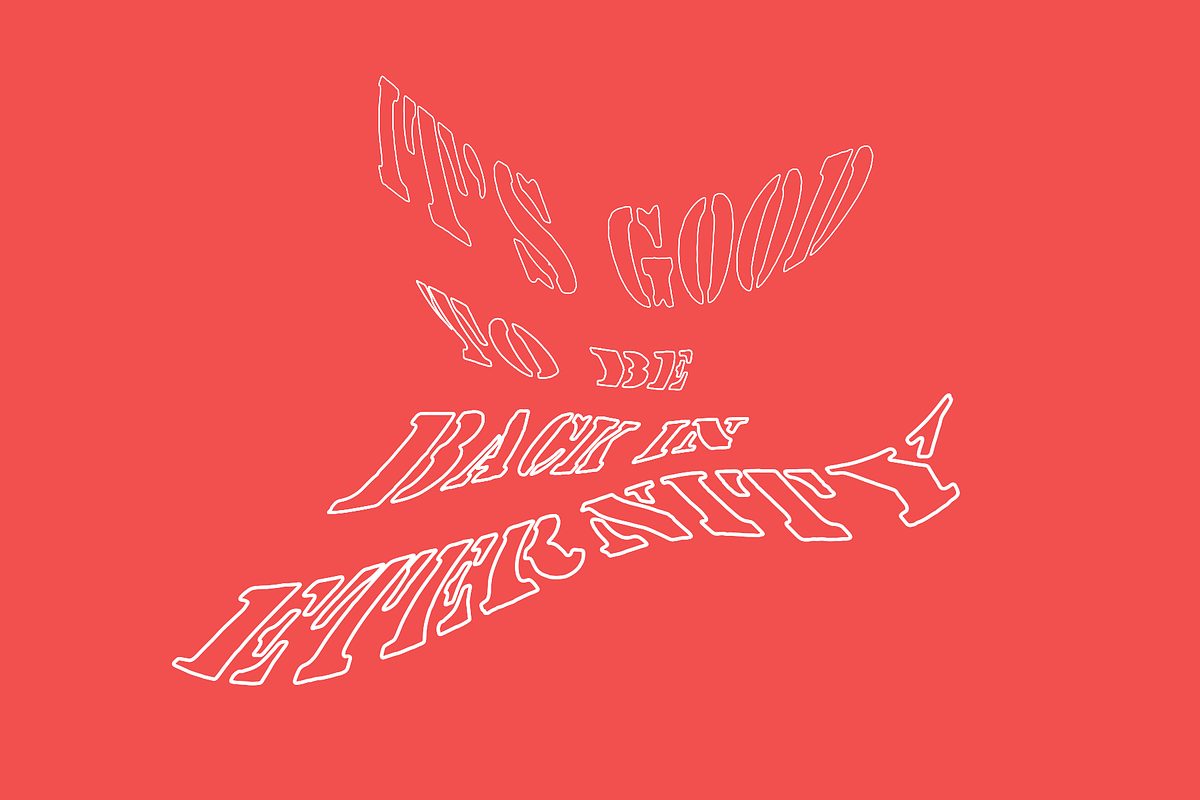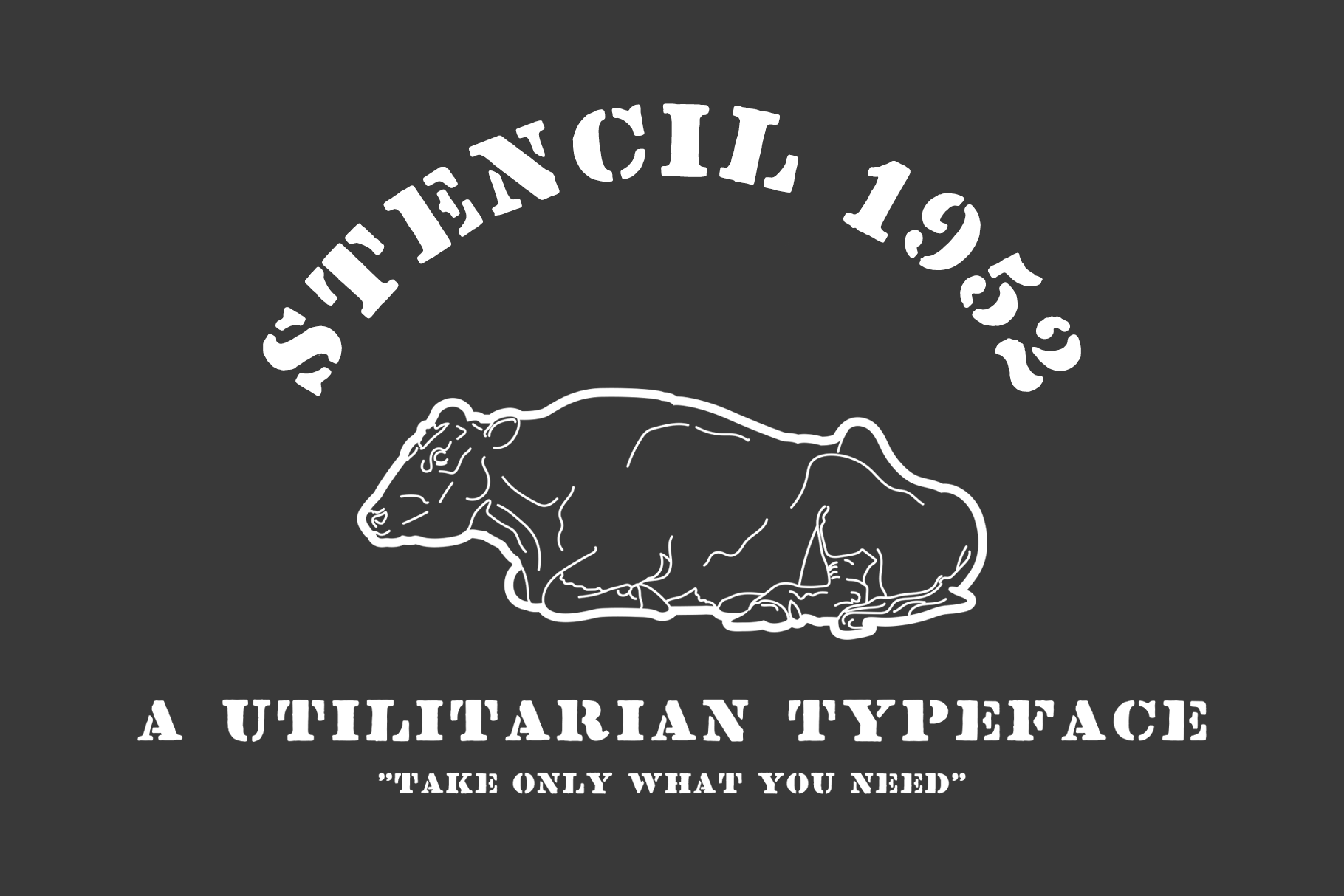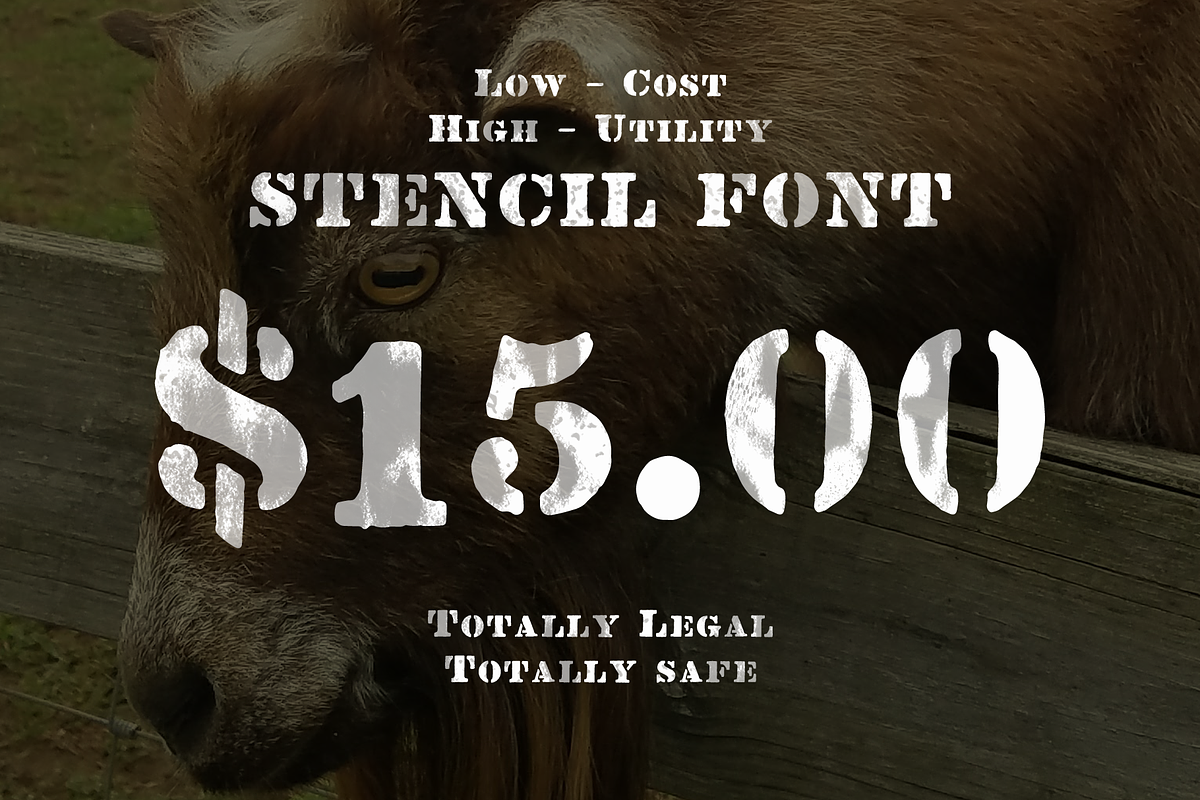
Vintage Stencil Font from the 1950s
Stencil 1952 is a gem of a stencil font I found in an old typography book. I love its rustic feel - its imperfect lines lend to its hand drawn aesthetic.
I use this font in my work specifically when I'm looking for a small, unexpected visual twist that evokes a sense of nostalgia.